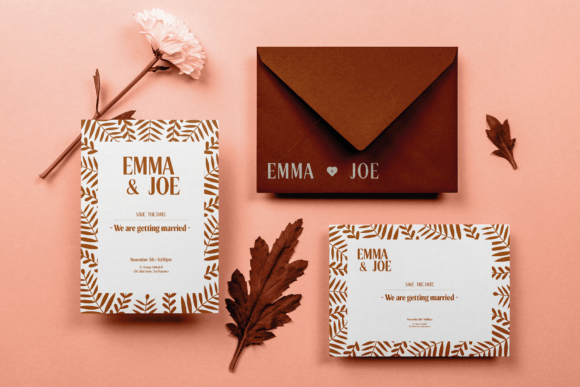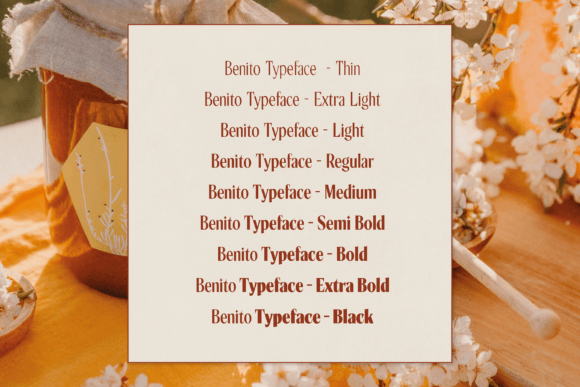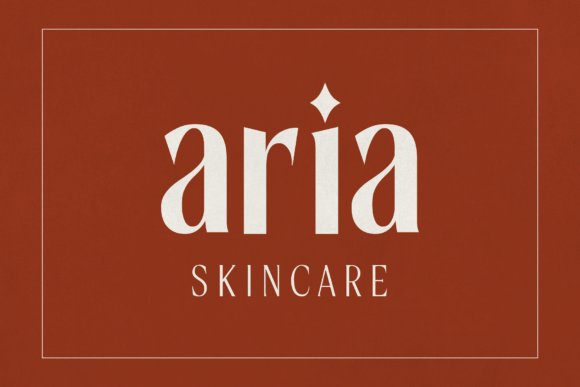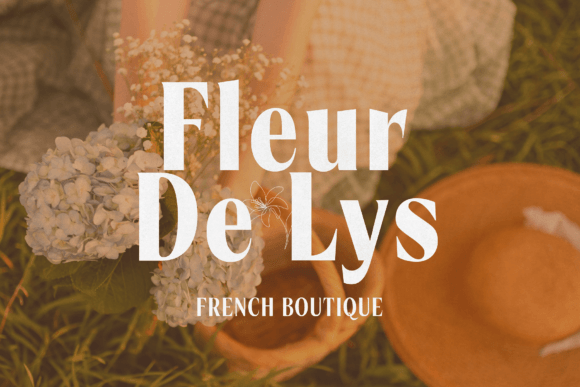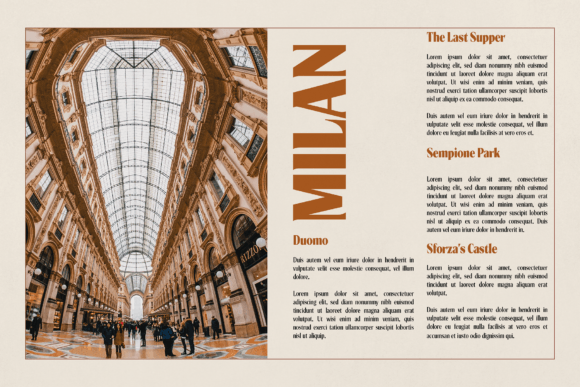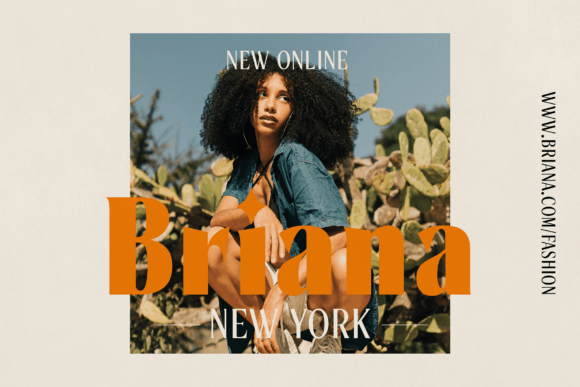
In the world of typography, few fonts manage to convey elegance and sophistication as effortlessly as Benito. This exquisite font is designed to add a touch of class to any project, making it a perfect choice for high-end brands and upscale designs. With its sleek, professional look, Benito commands attention and leaves a lasting impression, whether used in print or digital media.
The Timeless Design of Benito
Benito’s design is a masterclass in timeless typography. Its clean lines, precise curves, and balanced proportions create a harmonious visual experience that is both aesthetically pleasing and highly legible. This font’s classic design ensures that it remains relevant and stylish, regardless of current trends, making it a valuable asset for any designer or brand looking to make a lasting impact.
Perfect for High-End Brands and Upscale Designs
For brands that aim to project an image of luxury, sophistication, and professionalism, Benito is an ideal choice. Its elegant appearance instantly elevates the status of any project, from logos and branding materials to websites and marketing collateral. The font’s high-end look and feel make it particularly suited for use in:
- Luxury branding and logos
- High-fashion magazines and editorials
- Premium product packaging
- Corporate and business presentations
- Fine dining and hospitality industry marketing materials
Multilingual Support for Global Reach
One of the key features that set Benito apart is its extensive multilingual support. This means that designers can use Benito to create materials for a global audience, without worrying about character limitations or legibility issues. Whether your target audience speaks English, Spanish, French, Chinese, or any other language, Benito ensures that your message is conveyed with clarity and style.
Versatility Across Different Media
Benito’s versatility is another one of its standout qualities. This font seamlessly transitions from print to digital media, ensuring that your designs look great in any context. Use Benito in:
- Print materials like brochures, flyers, and business cards
- Digital platforms such as websites, blogs, and social media
- Advertising and marketing campaigns across various channels
- Elegance and Sophistication: Benito exudes a sense of luxury and refinement, perfect for high-end projects.
- Timeless Design: Its classic look ensures longevity and relevance.
- Multilingual Support: Communicate effectively with a global audience.
- Versatility: Suitable for use in both print and digital media.
- Legibility: Clear and easy to read, even at small sizes.